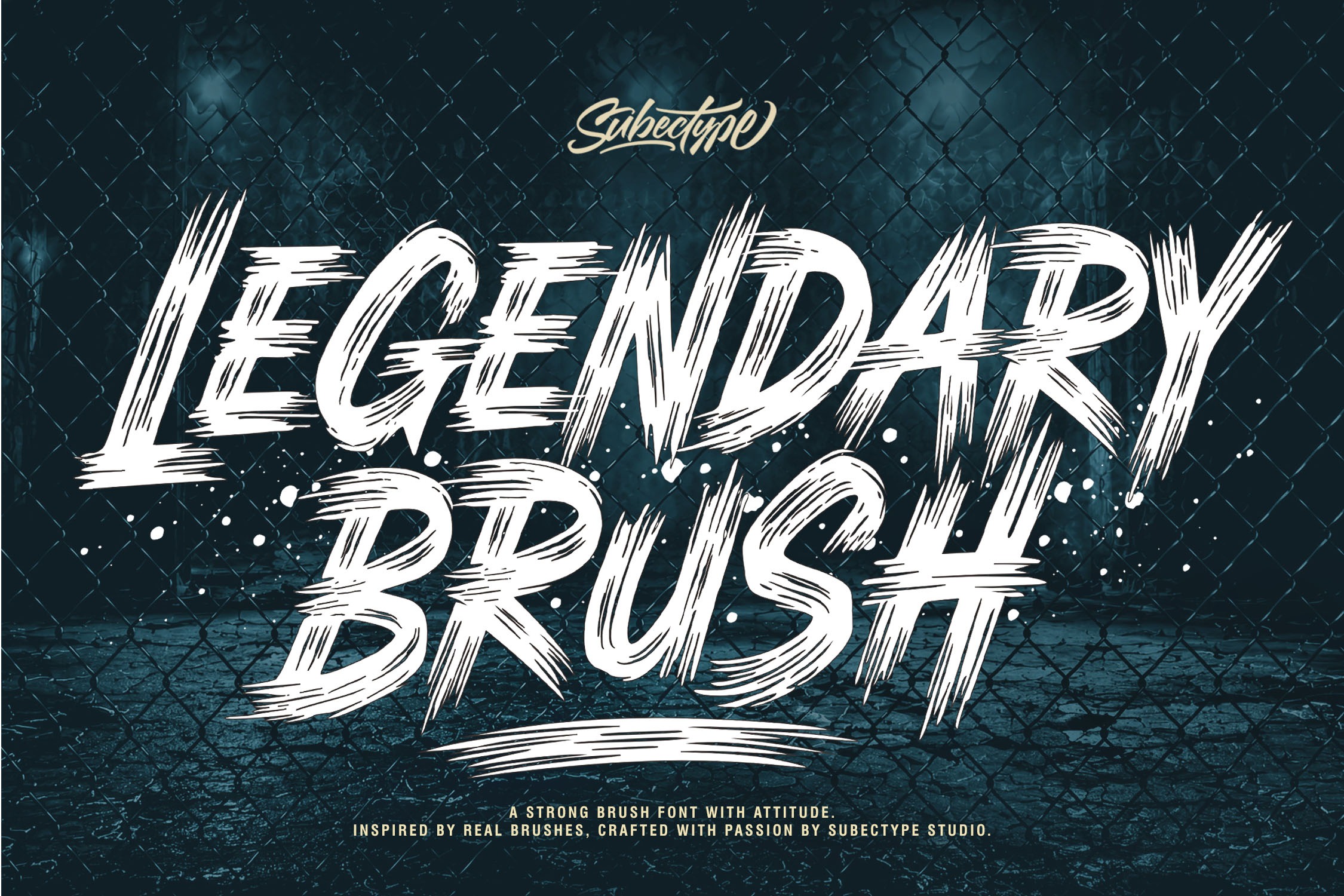
Legendary Brush – Urban Brush Font
Legendary Brush – Urban Brush Font is a clean and thoughtfully built typeface that works seamlessly for both professional branding and everyday creative uses. Unleash unstoppable energy with a handcrafted brush font inspired by urban streets, extreme sports, and outdoor adventure. Every stroke is crafted to deliver bold impact, authentic character, and fearless attitude. Perfect for branding, logos, posters, packaging, and creative projects that demand attention.